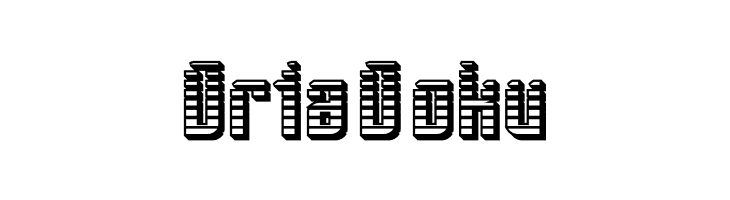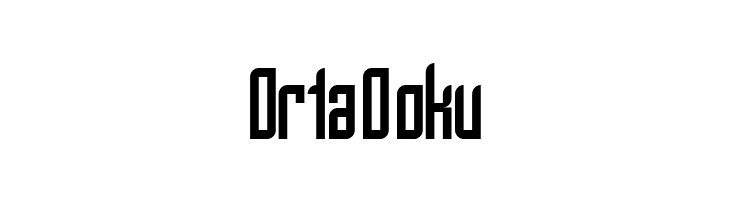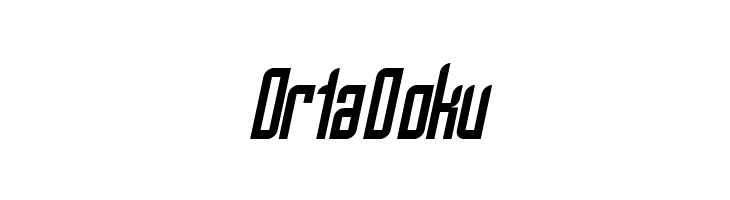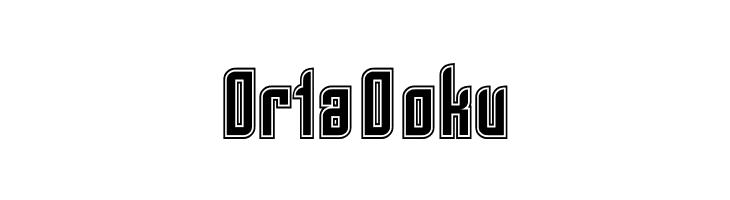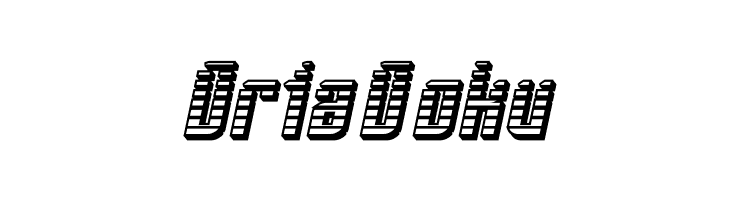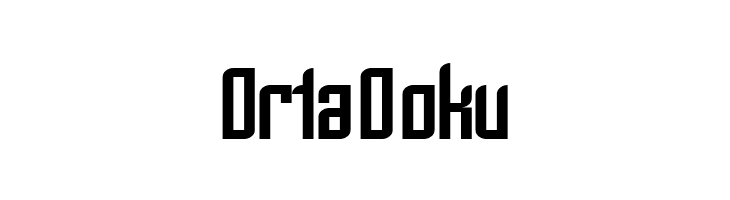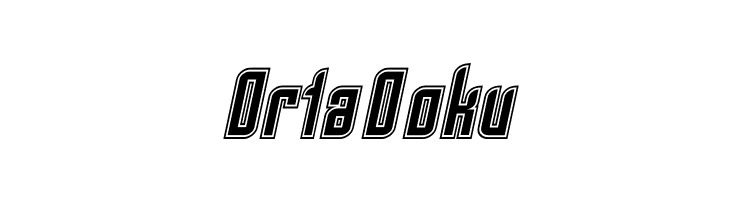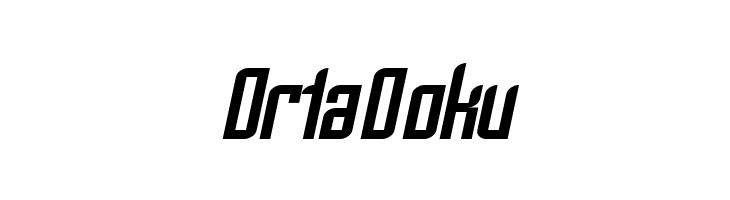
SF Piezolectric Oblique Font
A bold, oblique font with a futuristic and dynamic style.
SF Piezolectric Font
A bold, geometric font with a modern, digital aesthetic.
SF Piezolectric Condensed Font
A condensed, geometric font with a modern, technical style.
SF Piezolectric Inline Oblique Font
A bold, futuristic inline oblique font with geometric shapes and outlined characters.
SF Piezolectric Condensed Oblique Font
A futuristic, condensed, and oblique font with a dynamic and sleek appearance.
SF Piezolectric SFX Font
A bold, geometric font with a striped, futuristic design.
SF Piezolectric SFX Oblique Font
A bold, oblique font with a futuristic, striped design.
SF Piezolectric Inline Font
A bold, geometric font with a futuristic inline style and strong contrast.